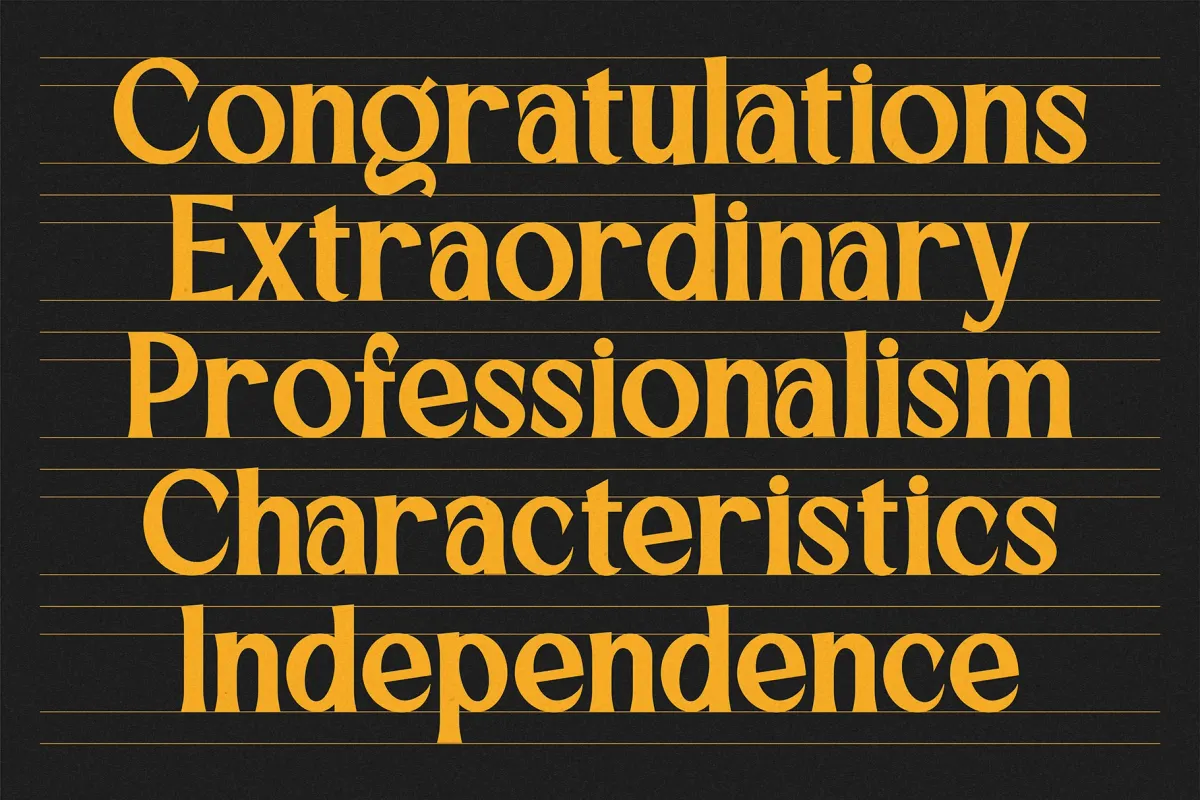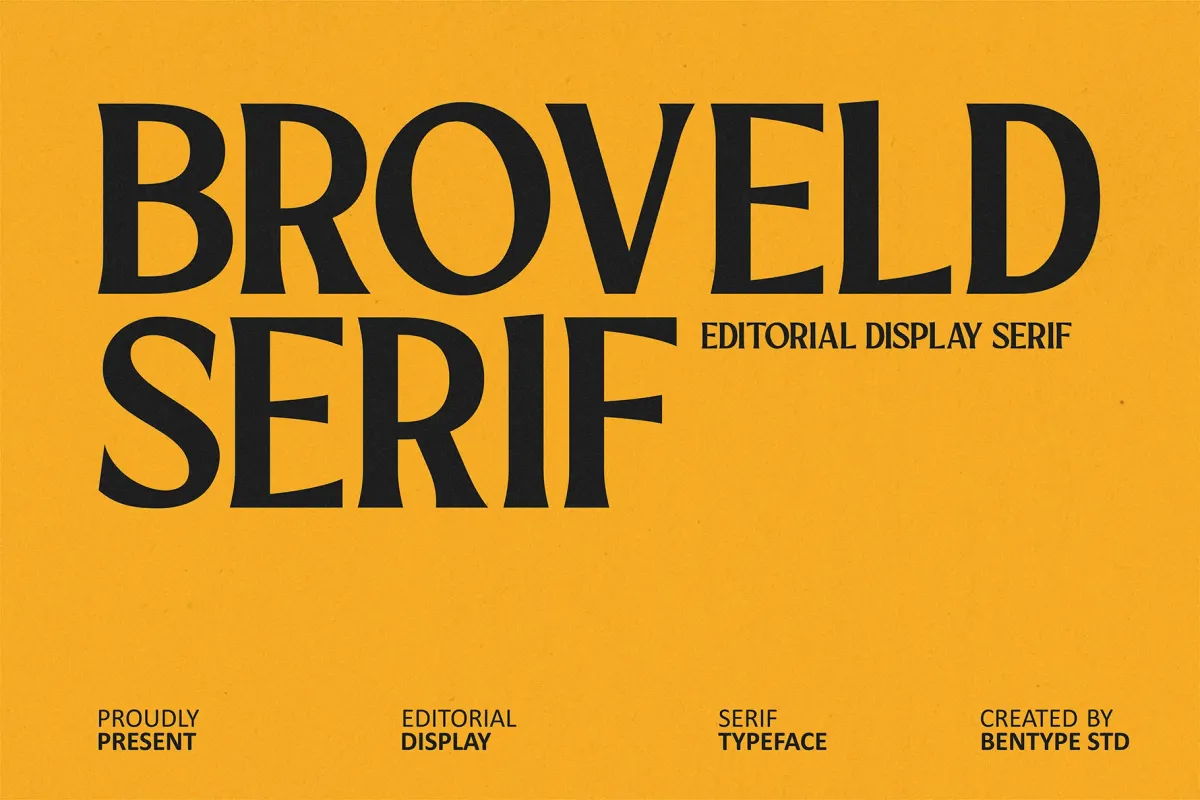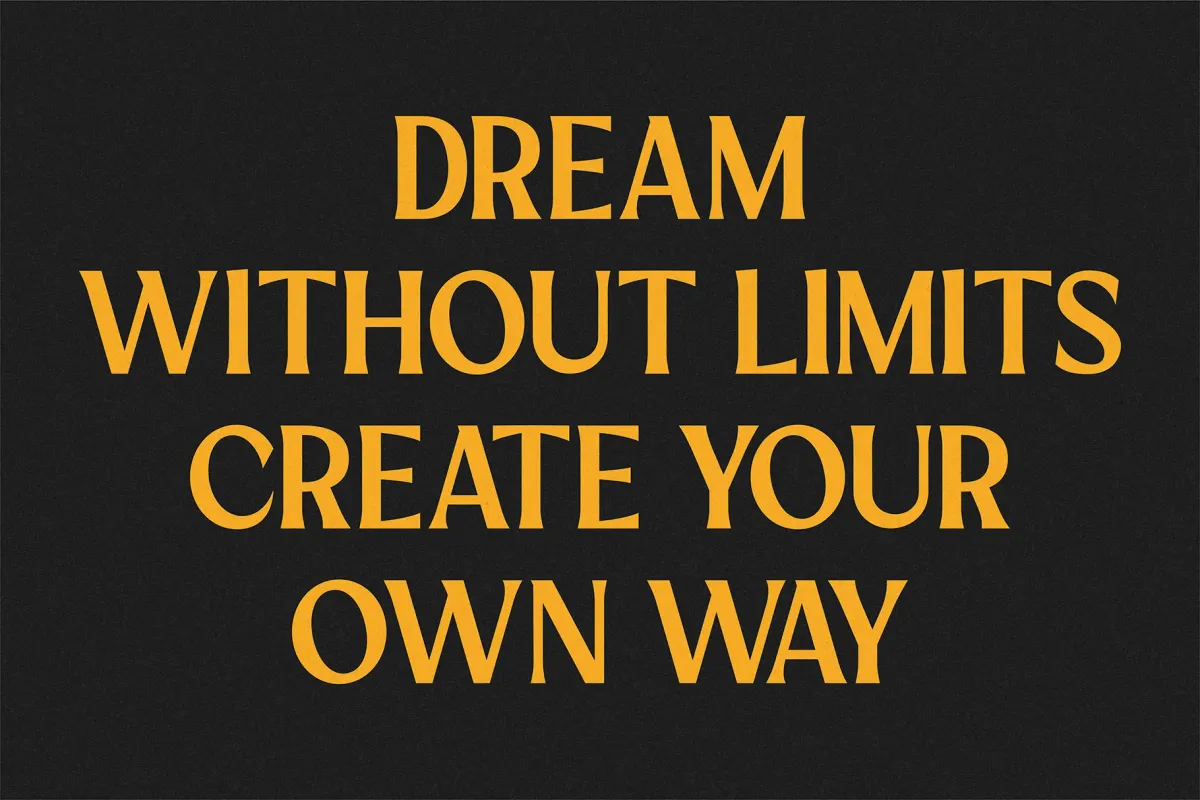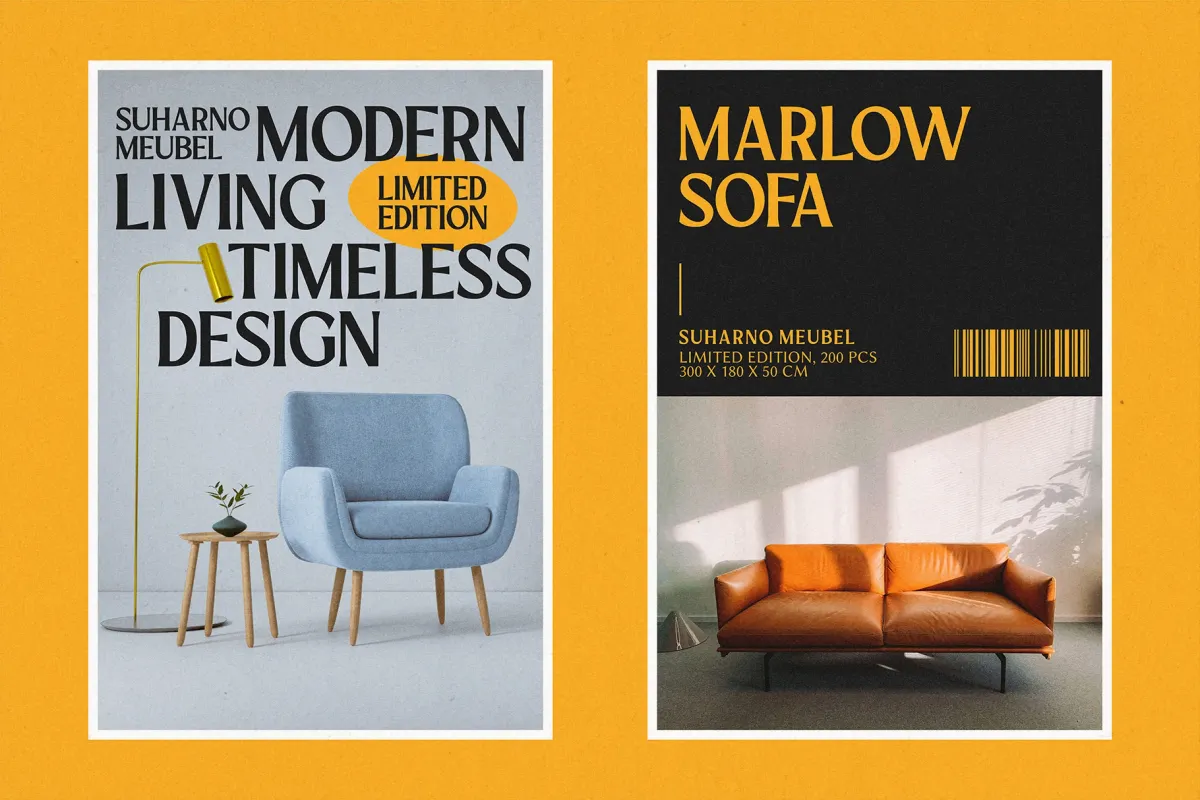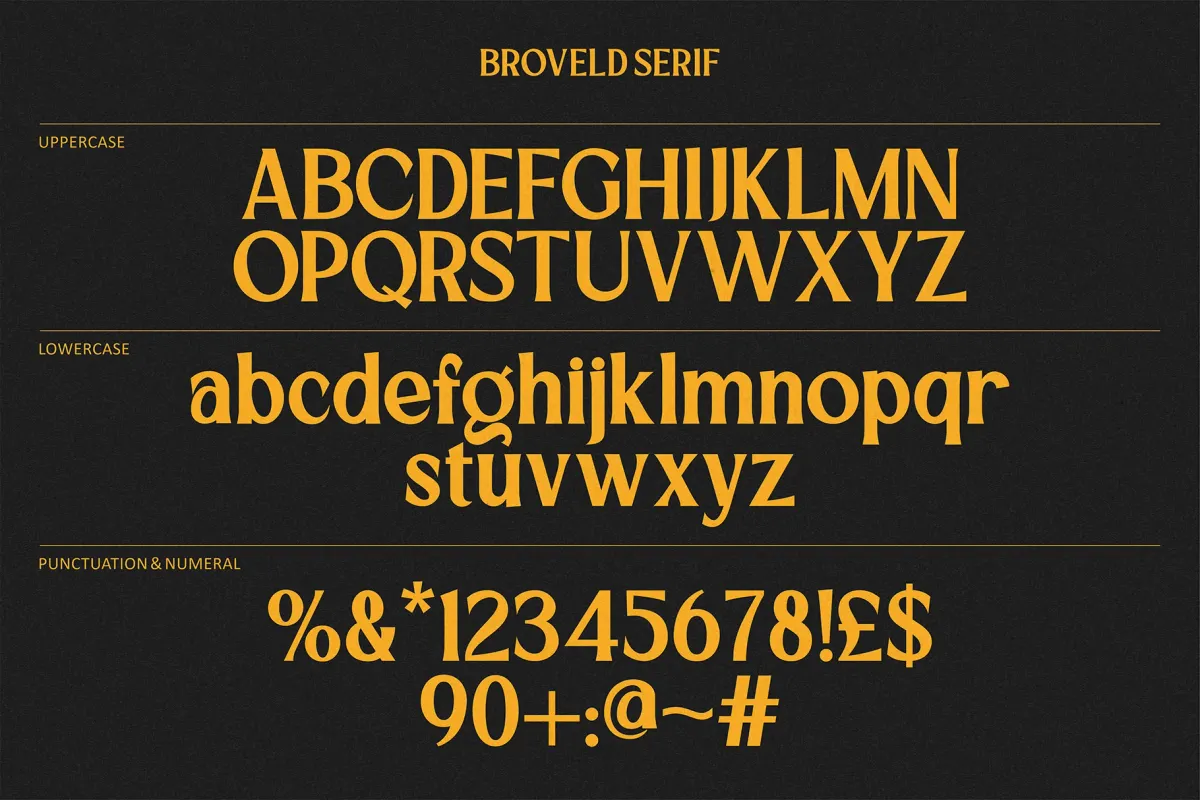
Broveld Serif – Editorial Display Font
Broveld runs on sharp, high-contrast serifs and letterforms that shift between condensed uppercase and slightly looser lowercase, giving headlines a bold, sculpted presence. The contrast between fine hairlines and thick strokes keeps it feeling dramatic without tipping into decorative.
It suits fashion and beauty branding, luxury logos, magazine and editorial layouts, wedding stationery, packaging, and poster headlines — anywhere a display serif needs to carry real weight on the page.